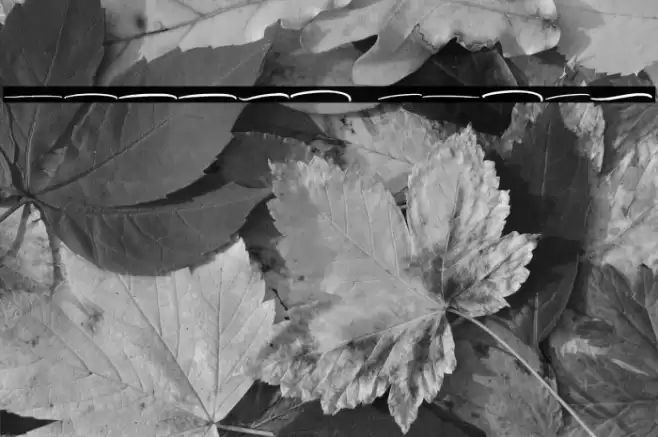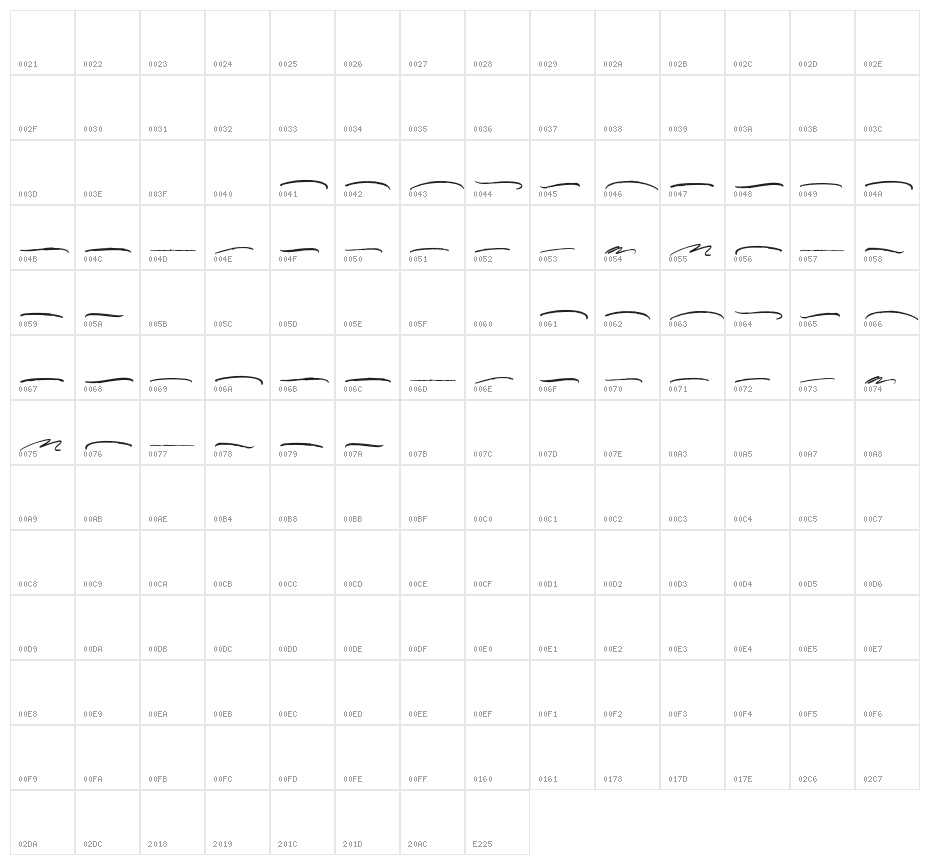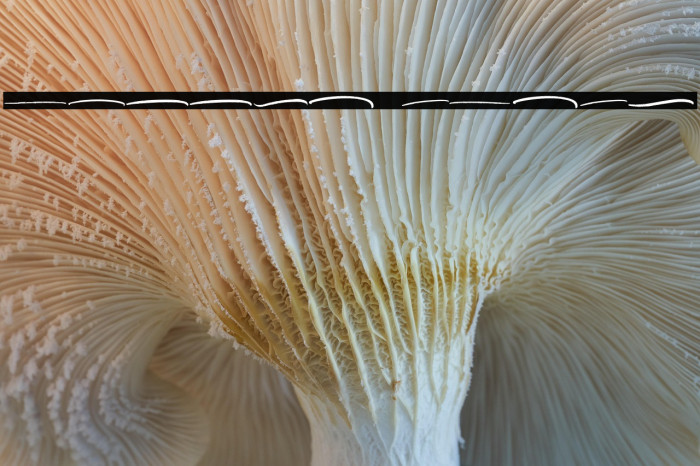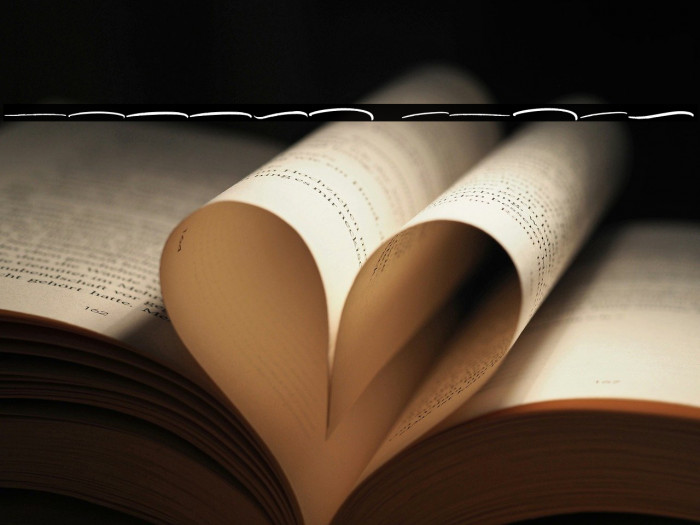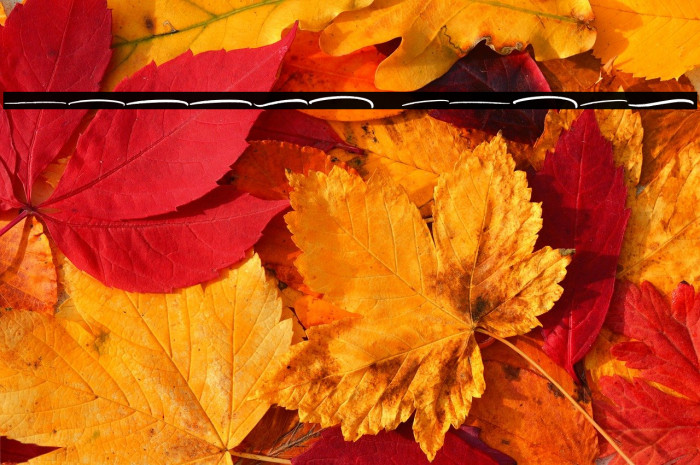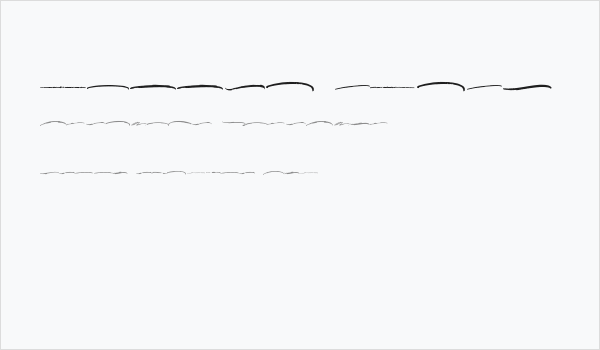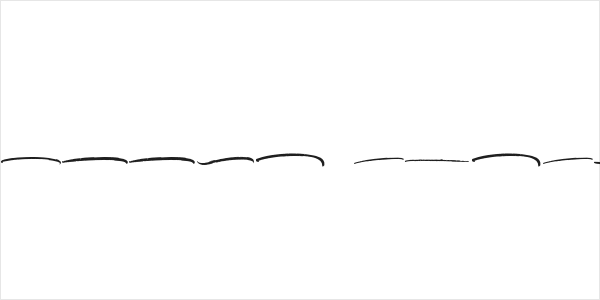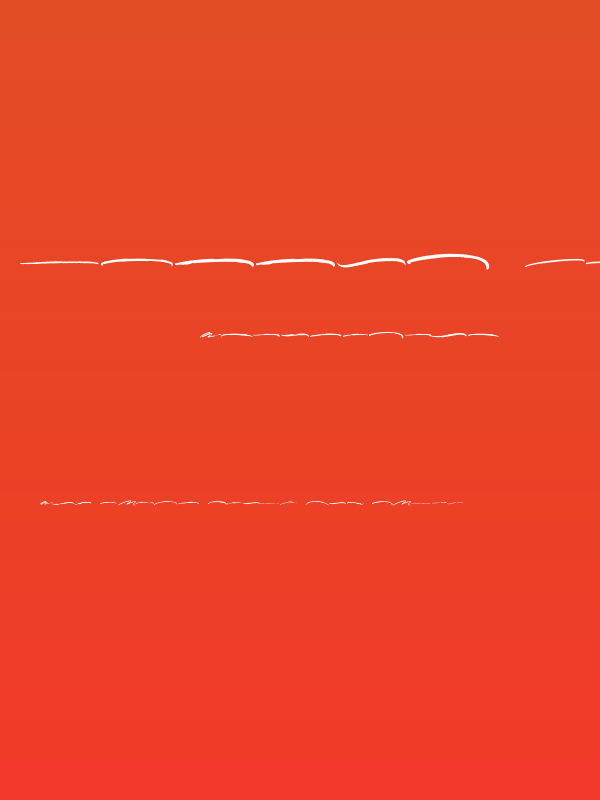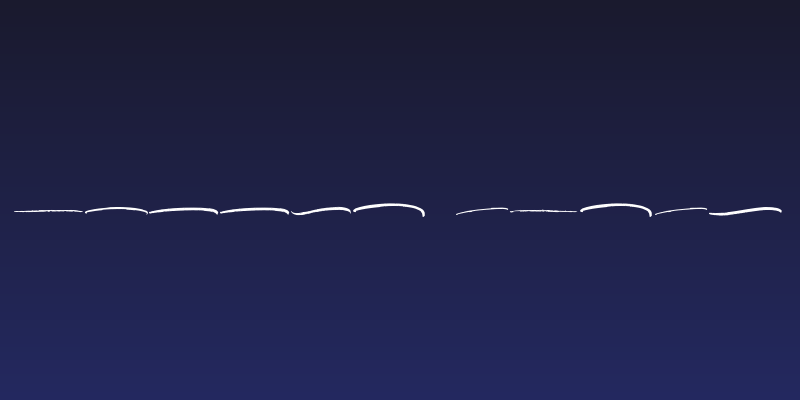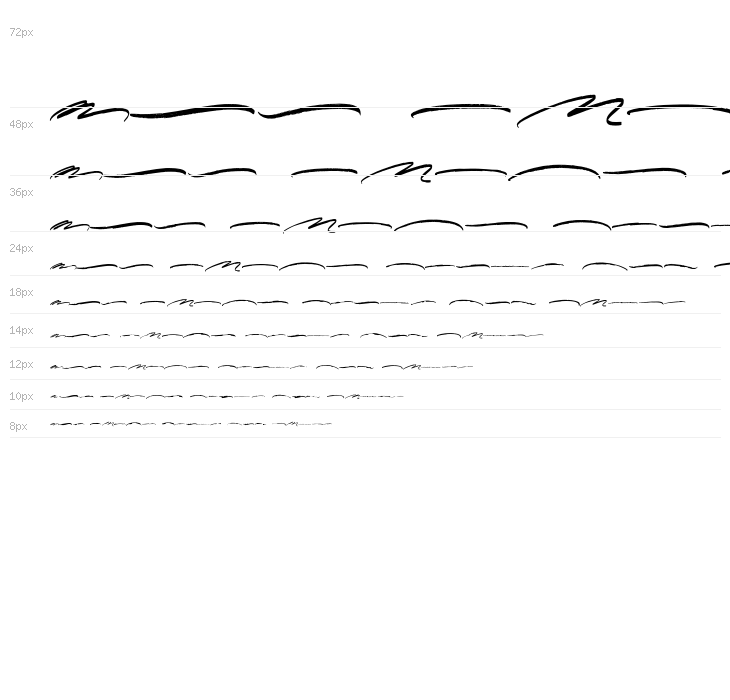
Millea Swash Font
Millea Swash Description
This is a decorative font characterized by its elegant and flowing swashes. Each letter is adorned with intricate curves and flourishes, giving it a sophisticated and artistic appearance. The font maintains a consistent stroke width, providing a balanced and harmonious look. Its unique style is reminiscent of calligraphic handwriting, making it ideal for projects that require a touch of elegance and creativity. The font's design is both eye-catching and refined, suitable for a variety of artistic and formal applications.
A decorative font with elegant swashes and calligraphic style from Regular fonts.
- Proposed Projects: Ideal for wedding invitations, greeting cards, logos, and branding materials that require an elegant and artistic touch.
- Use Case: Logos, Invitations, Artistic projects